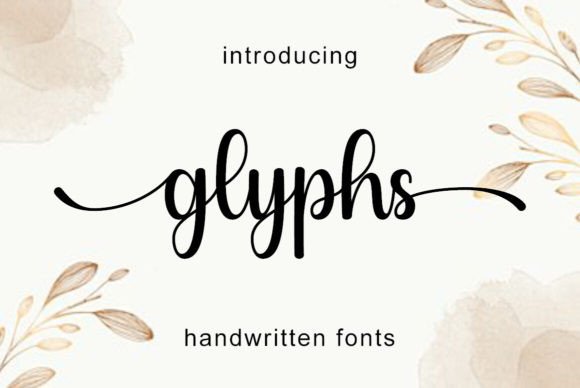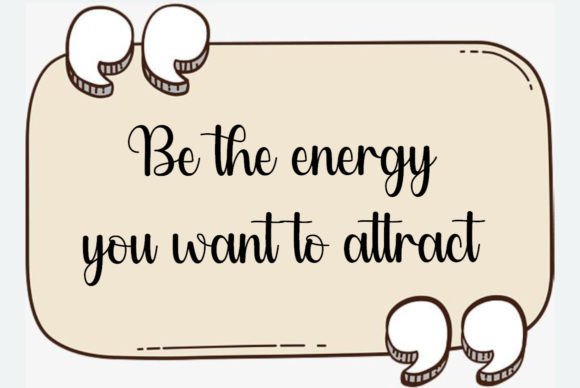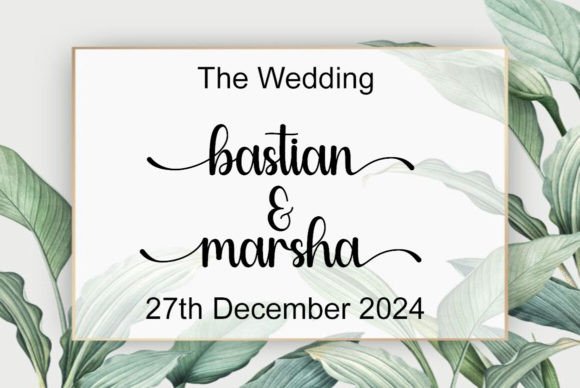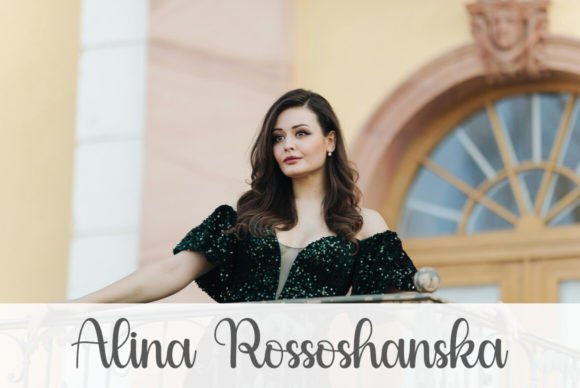
Glyphs Font
About the Glyphs Font
Introducing the Glyphs Font, a beautifully crafted typeface designed to elevate your creative projects. Glyphs is a stylish and incredibly elegant handwritten font. It looks stunning on wedding invitations, thank you cards, quotes, greeting cards, logos, business cards, and every other design which needs a handwritten touch.
Glyphs’ elegant, handwritten style is ideal for branding projects requiring a touch of personal warmth, particularly logos, short-form marketing materials, and social media graphics. It also excels in packaging design for high-end or artisanal products. However, its delicate nature makes it unsuitable for body text or UI elements; the intricate details would likely prove illegible at smaller sizes.
Consider pairing Glyphs with a clean sans-serif like Montserrat for a modern contrast, or a classic serif such as Garamond for a more traditional feel. For a playful touch, a rounded geometric sans-serif like Circular might work well. Avoid pairing it with overly ornate or highly stylized fonts, which could clash with its inherent grace.
Glyphs projects a sophisticated and approachable personality, conveying both style and approachability. It’s best suited for brands aiming for a premium yet personal image.